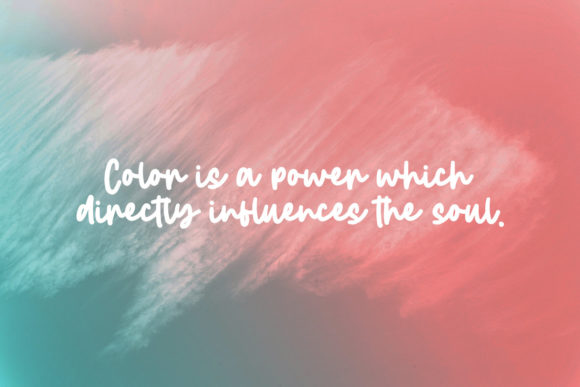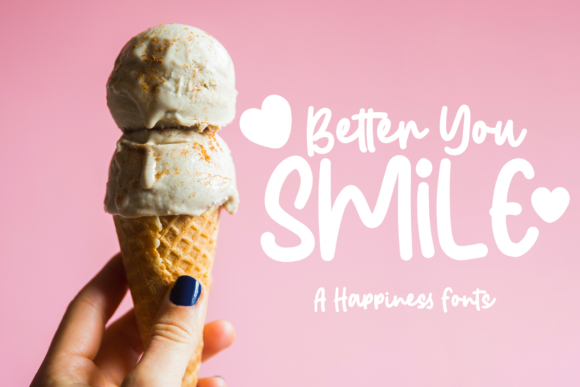
Better You Smile Font: The Perfect Choice for Friendly and Relaxed Designs
In the world of typography, fonts play a crucial role in conveying the tone and personality of a design. When it comes to creating a friendly and approachable vibe, the right font can make all the difference. This is where the Better You Smile font comes in – a casual, easy-to-read handwritten font that exudes impeccable friendliness. In this article, we’ll dive into the features and benefits of the Better You Smile font, and explore why it’s a great choice for designers and crafters looking to add a relaxed touch to their creations.
The Characteristics of Better You Smile Font
Better You Smile is a handwritten font that boasts an informal style and casual vibe. Its unique characteristics make it an excellent choice for designs that require a personal and approachable touch. Here are some of the key features that set Better You Smile apart:
- Handwritten style: Better You Smile has a natural, handwritten look that gives it a personal and friendly feel.
- Easy to read: The font is designed to be easy to read, making it perfect for body text, headings, and titles.
- Casual vibe: The font’s informal style and relaxed vibe make it ideal for designs that require a laid-back and approachable tone.
Why Choose Better You Smile Font?
So, why should designers and crafters choose Better You Smile font for their projects? Here are some compelling reasons:
- Conveys friendliness: The font’s friendly and approachable style makes it perfect for designs that require a warm and welcoming tone.
- Versatile: Better You Smile font can be used for a wide range of projects, from social media graphics and blog posts to branding and packaging.
- Easy to use: The font is easy to read and works well in both digital and print formats.
Better You Smile font is suitable for a variety of design projects, including:
- Social media graphics: The font’s casual style makes it perfect for social media graphics, such as Facebook posts, Instagram stories, and Twitter headers.
- Blog posts and articles: Better You Smile font is ideal for blog posts and articles that require a friendly and approachable tone.
- Branding and packaging: The font’s unique style makes it a great choice for branding and packaging designs that require a personal touch.
- Invitations and cards: Better You Smile font is perfect for creating invitations, greeting cards, and other paper crafts.
Tips for Using Better You Smile Font
To get the most out of Better You Smile font, here are some tips to keep in mind:
- Use it with a clear hierarchy: Use the font in a clear hierarchy to create visual interest and emphasize important information.
- Experiment with colors: Better You Smile font works well with a range of colors, so don’t be afraid to experiment and find the perfect combination for your design.
- Pair it with other fonts: The font pairs well with other fonts, so feel free to experiment with different combinations to create a unique look.
In conclusion, Better You Smile font is a fantastic choice for designers and crafters looking to add a friendly and relaxed touch to their creations. Its unique characteristics, versatility, and ease of use make it a go-to font for a wide range of design projects. Whether you’re creating social media graphics, blog posts, or branding and packaging designs, Better You Smile font is sure to become a favorite in your design arsenal.